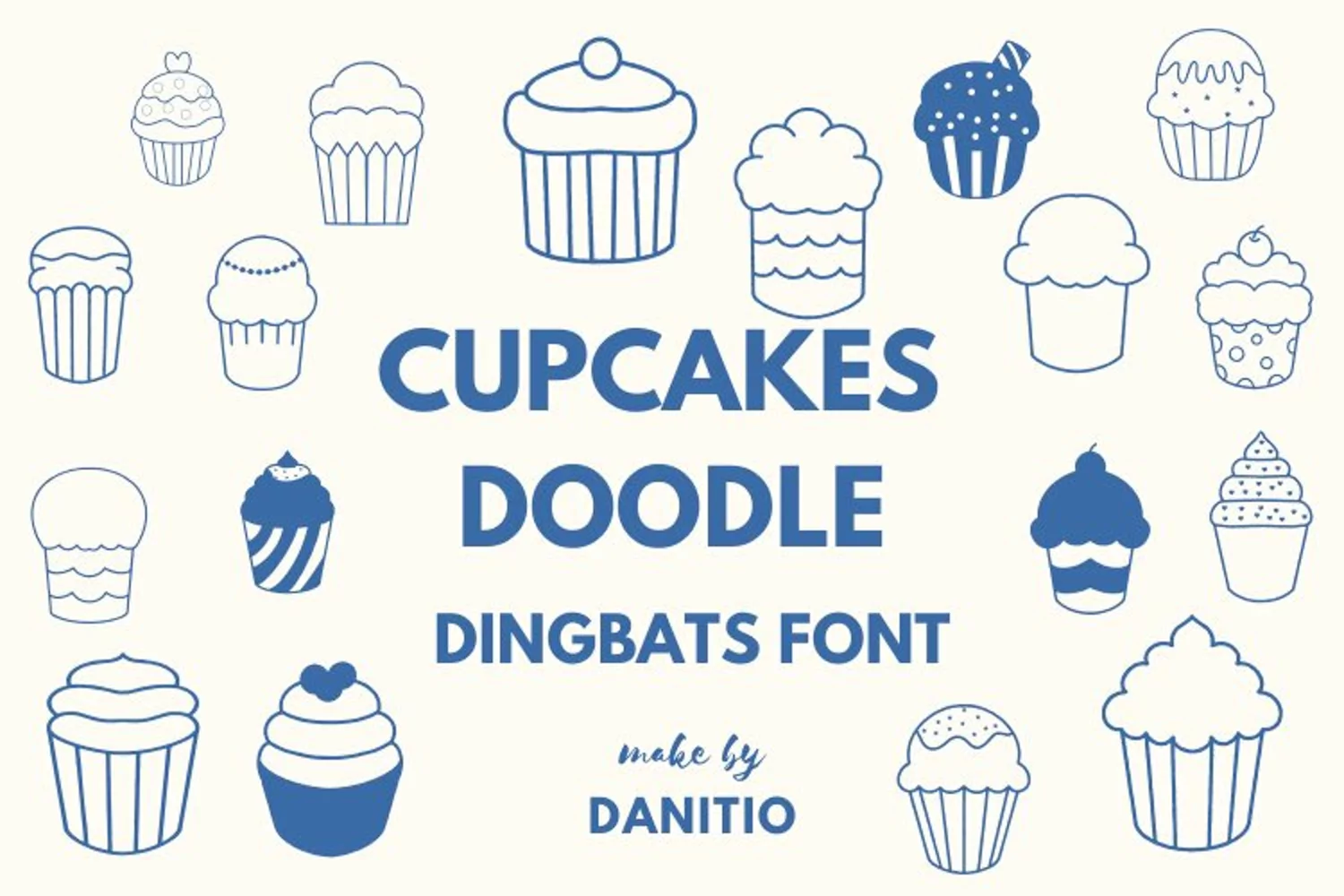
Cupcake
Cupcake-Dingbats
The cupcake font is a Dingbats font with a variety of different styles of cupcakes. It is ideal for design essentials. which you can add color And decorate your own cupcakes as you wish. Or will you use digital artefacts? Presentations or greeting cards, t-shirts, mugs, tote bags, or whatever product you think is appropriate. Hope you enjoy using my font.